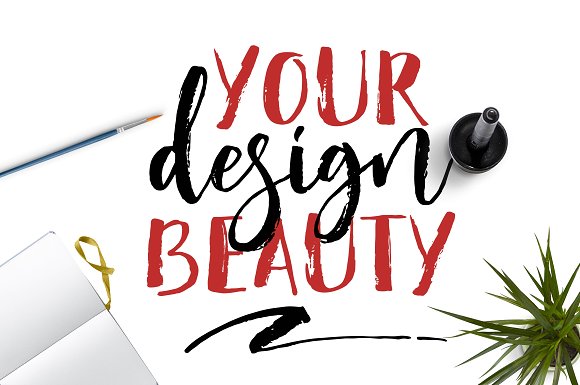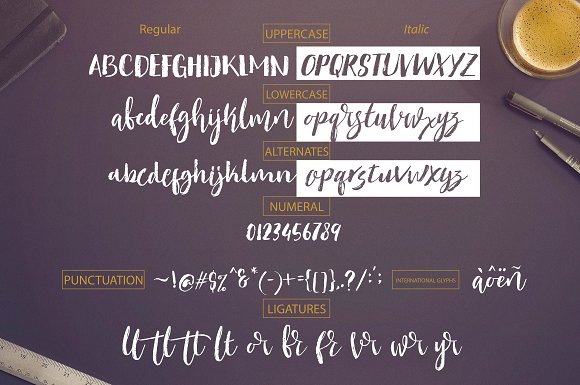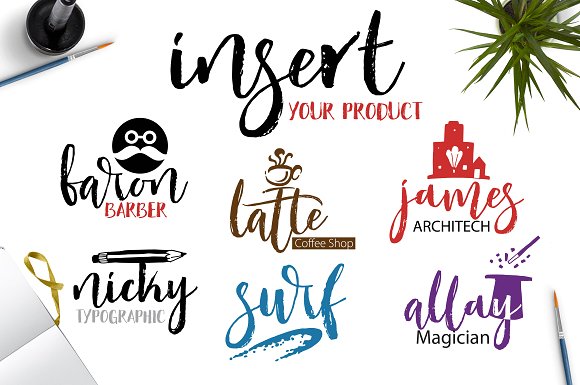
Introduction to Seilotta Font
Seilotta is a gorgeous brush script that comes packed with loads of extras.
Key Features of Seilotta Font
Why Choose Seilotta Font?
Seilotta Font offers exceptional quality and versatility, making it a valuable addition to your design toolkit. Whether you’re creating for personal projects or commercial use, Seilotta Font delivers professional results.